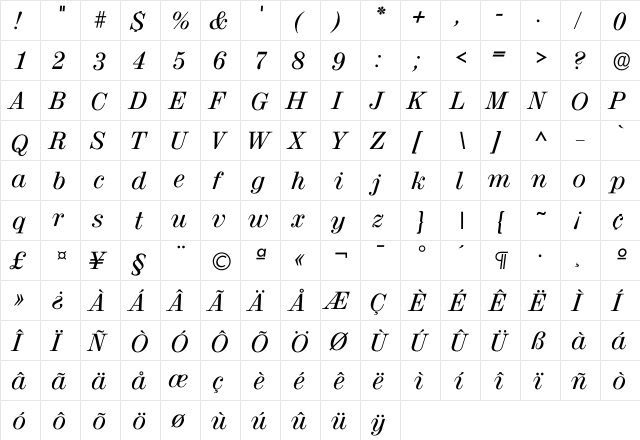
Ivalencia Medium
Design Context for Ivalencia Typeface
Ivalencia takes a measured approach to typography — its balanced proportions and neutral character make it a reliable workhorse for both digital and print work.